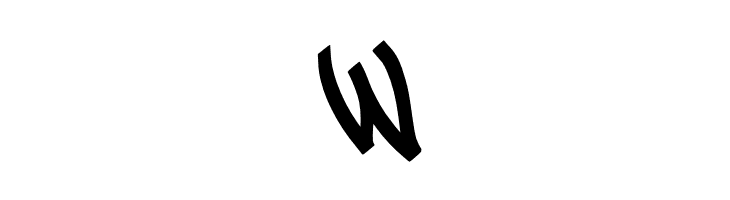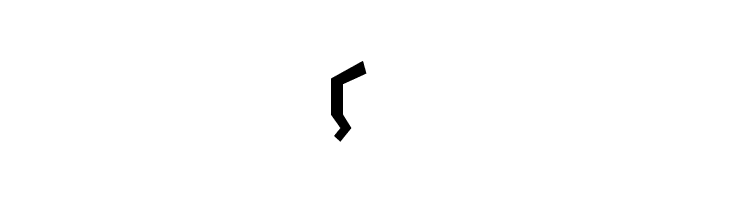
( Giedi Prime )
A bold, angular graffiti-style font with dynamic, fragmented characters.
A bold, distressed font with a hand-drawn, textured style.
A bold, modern font with a geometric and futuristic style.
A bold, graffiti-inspired font with sharp, angular lines and an energetic style.
An abstract, symbol-like font with intricate and artistic designs.
A traditional blackletter font with intricate, gothic-style letterforms.
A decorative blackletter font with intricate and gothic design elements.
A playful, hand-drawn script font with bold, rounded characters.
A festive, decorative font with playful holiday embellishments.
A dynamic and elegant script font with fluid, cursive strokes.
A futuristic, geometric font with clean lines and a modern aesthetic.
A playful, romantic script font with whimsical flourishes and heart motifs.
A bold, decorative serif font with a shadow effect, ideal for vintage designs.
A bold, geometric Art Deco font with angular lines and a vintage flair.
Geometric Art Deco-inspired design with bold black and white shapes.
A bold, Art Deco-inspired font with geometric shapes and high contrast.
A bold, freehand-style font with dynamic strokes and artistic flair.
A bold, geometric font with a futuristic and modern aesthetic.